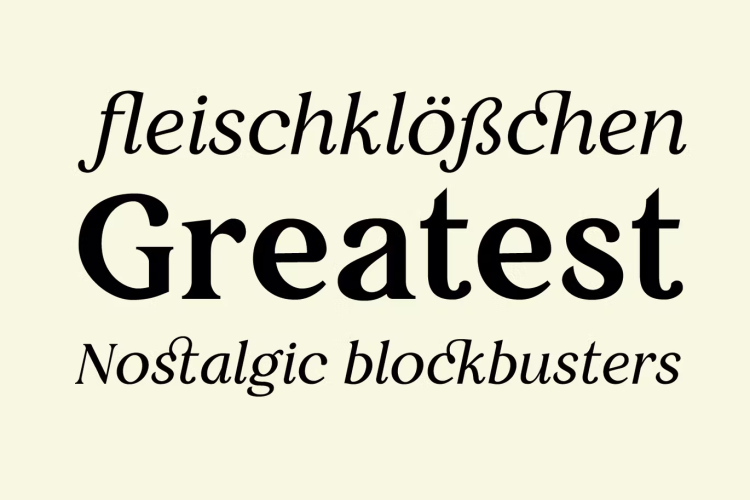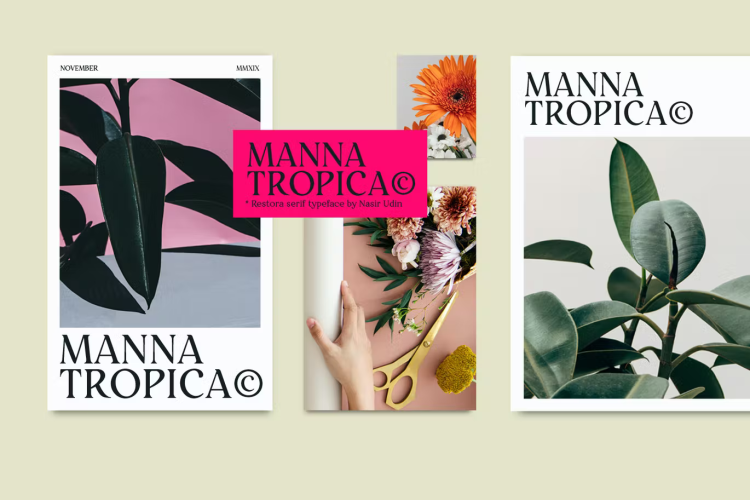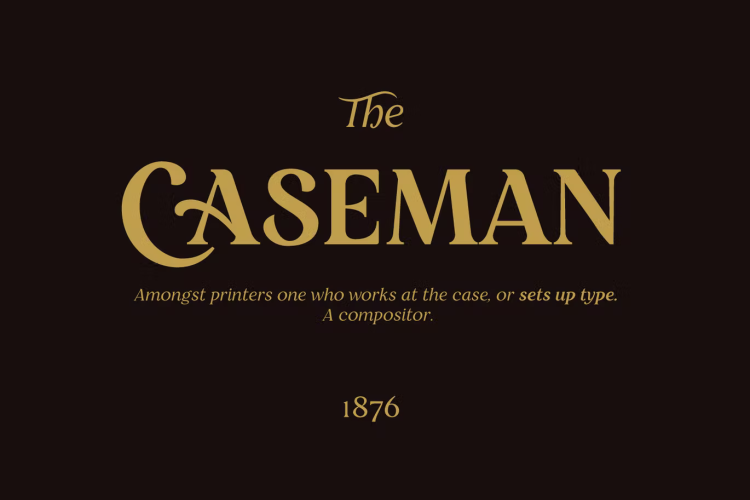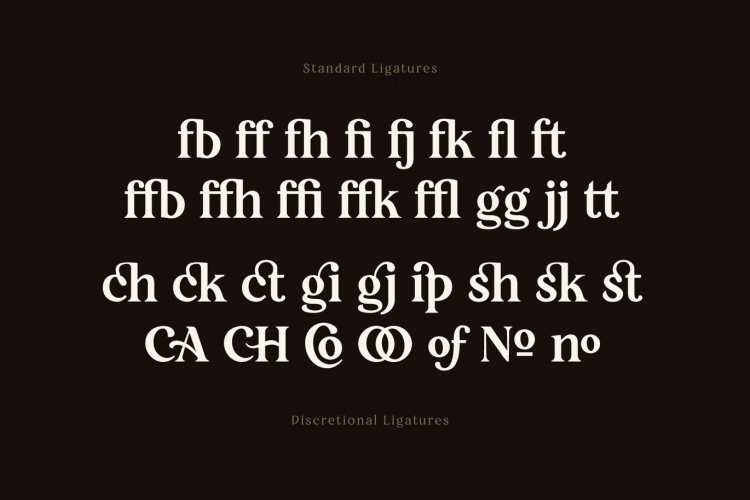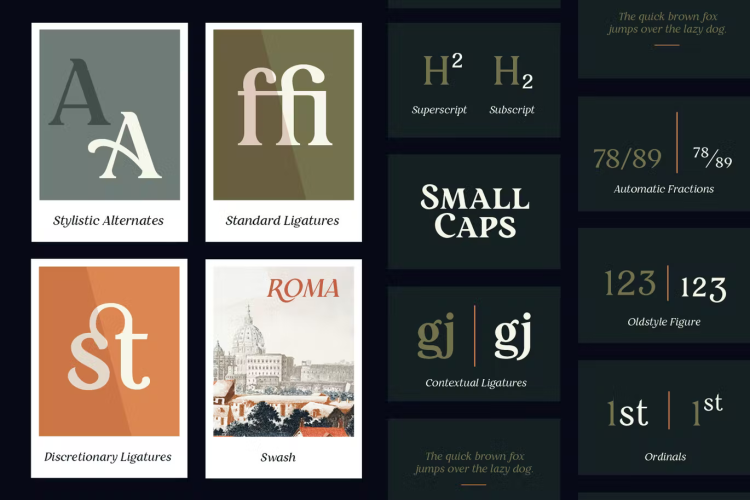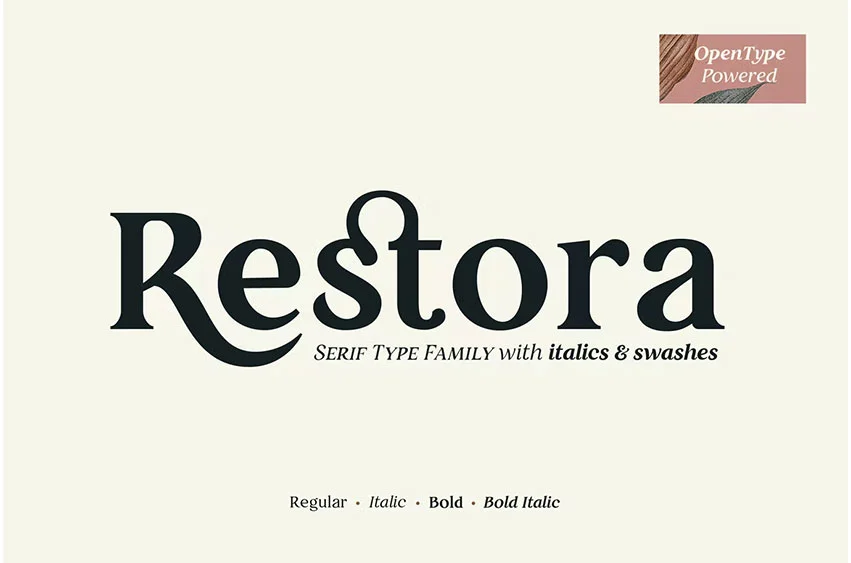
Restora Font
Restora Font is a mix of old-style roman serif styles. The combination of beautiful letterforms and old-style serif makes Restora a versatile type family that can be use…
Restora Font is a mix of old-style roman serif styles. The combination of beautiful letterforms and old-style serif makes Restora a versatile type family that can be used in many different themes of design projects.
It comes in eight weights from thin to black with matching italics. Its mixture of weights provides a wide range of styles that will help you find the best vibe for your projects, from body text to big headlines, from classic style to modern and bold style.
It is well suited for book covers, editorial, branding, advertising, and more. Its OpenType features provide a number of swash, beautiful ligatures, and stylistic alternates that give your typography a unique look.
Where Restora Font works best
Restora Font gives long-form text a classic, trustworthy rhythm — ideal for magazine spreads, annual reports and book interiors.
Pair Restora Font with generous letter-spacing for wordmarks in fashion, hospitality, wine and jewellery branding.
Use Restora Font for slide titles in Keynote, PowerPoint or Google Slides to add authority without looking dated.
What is Restora Font good for?